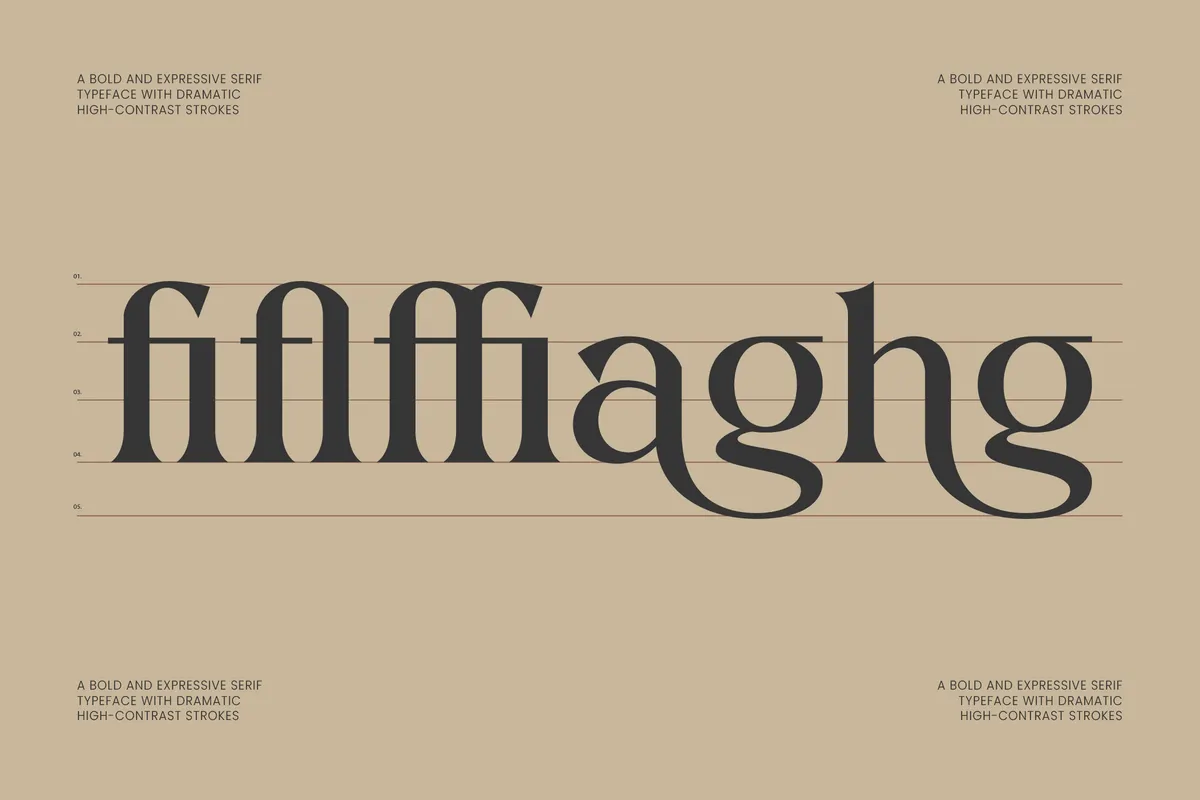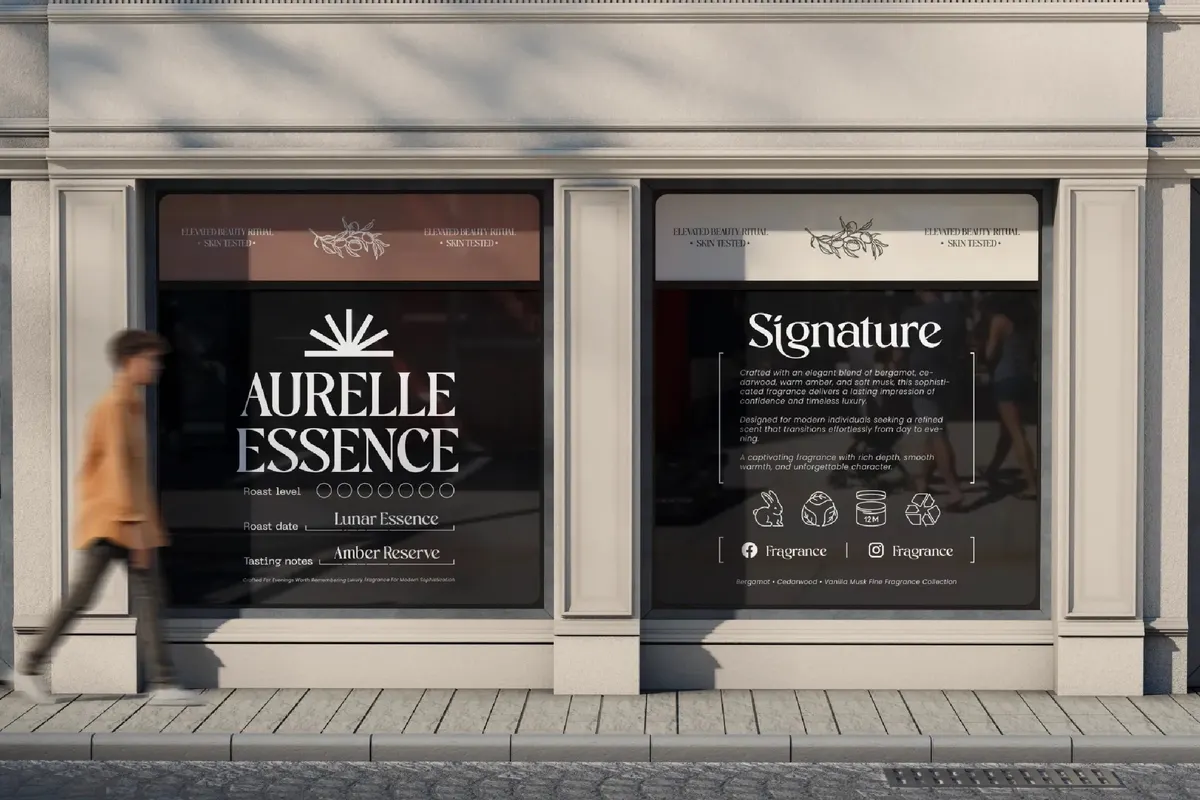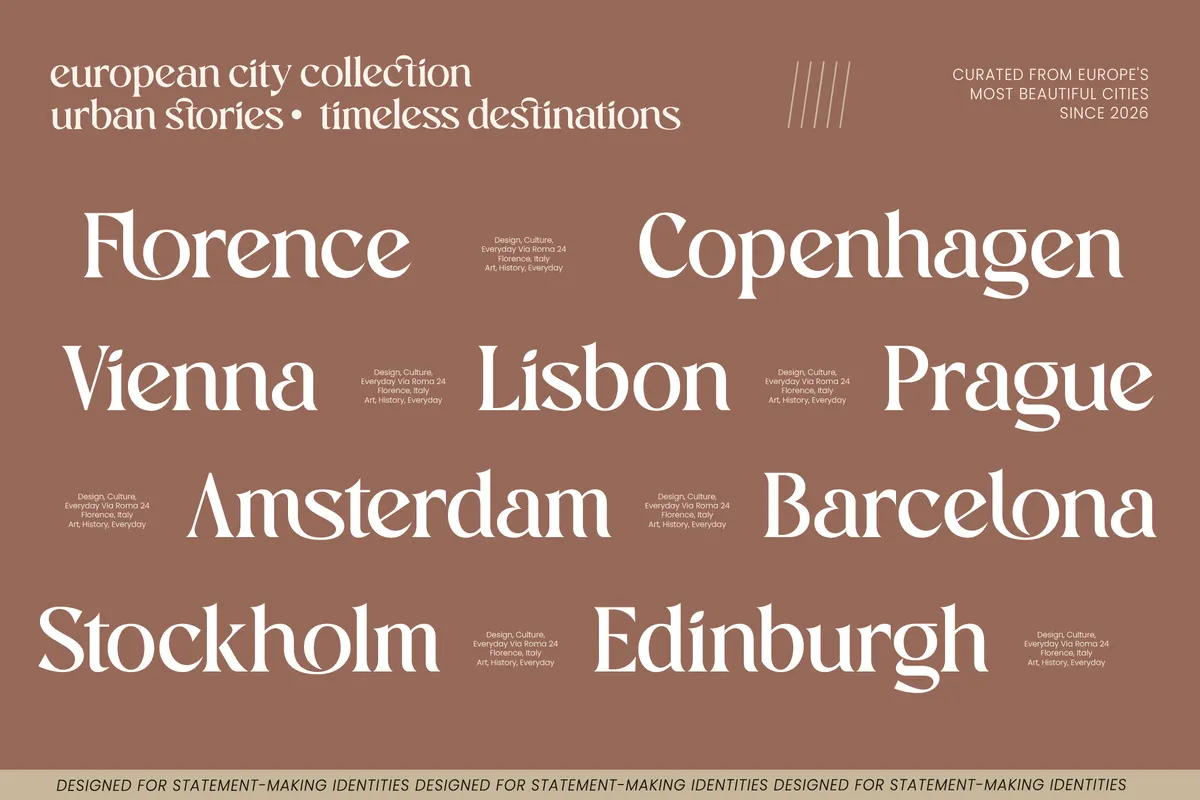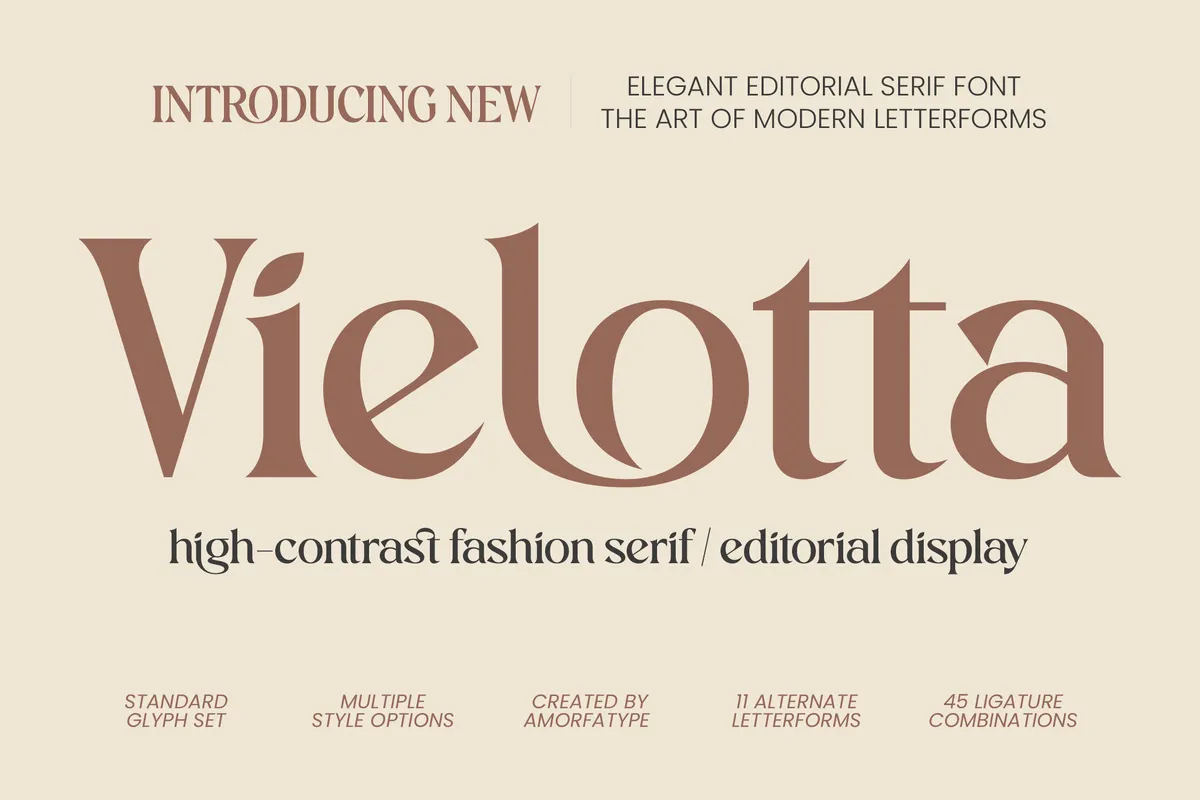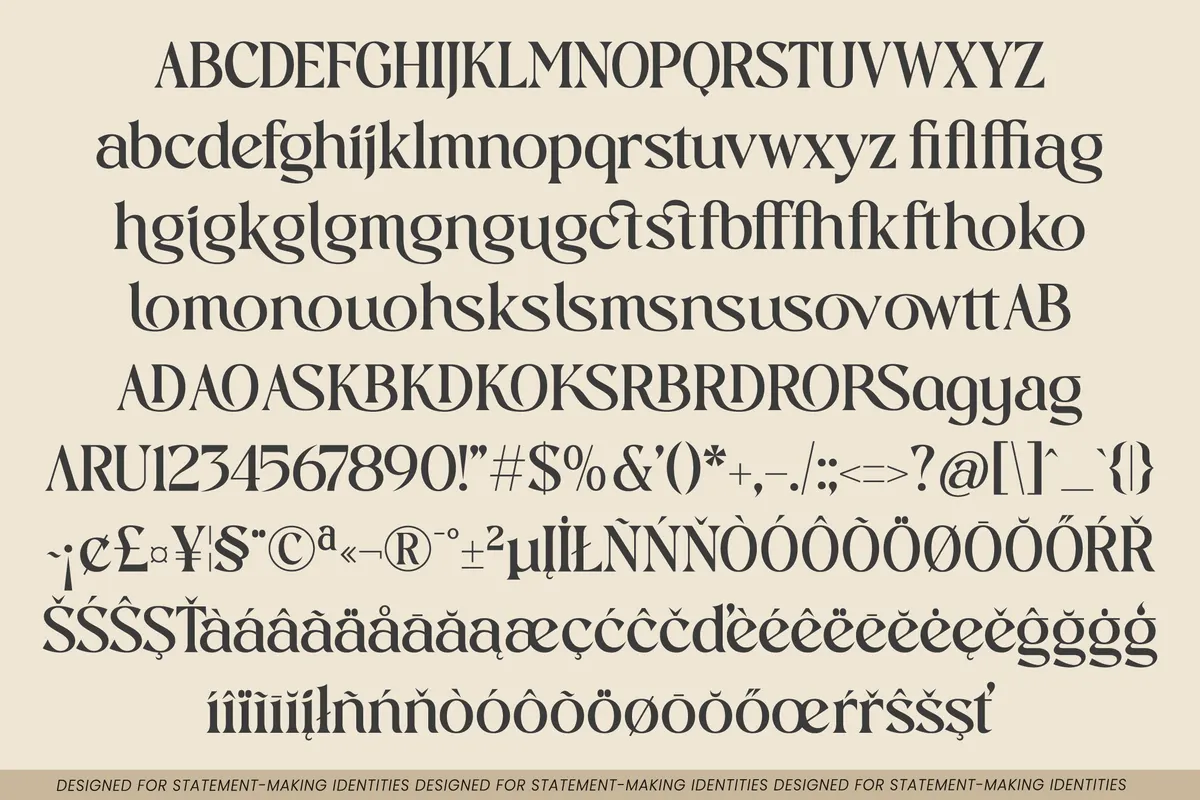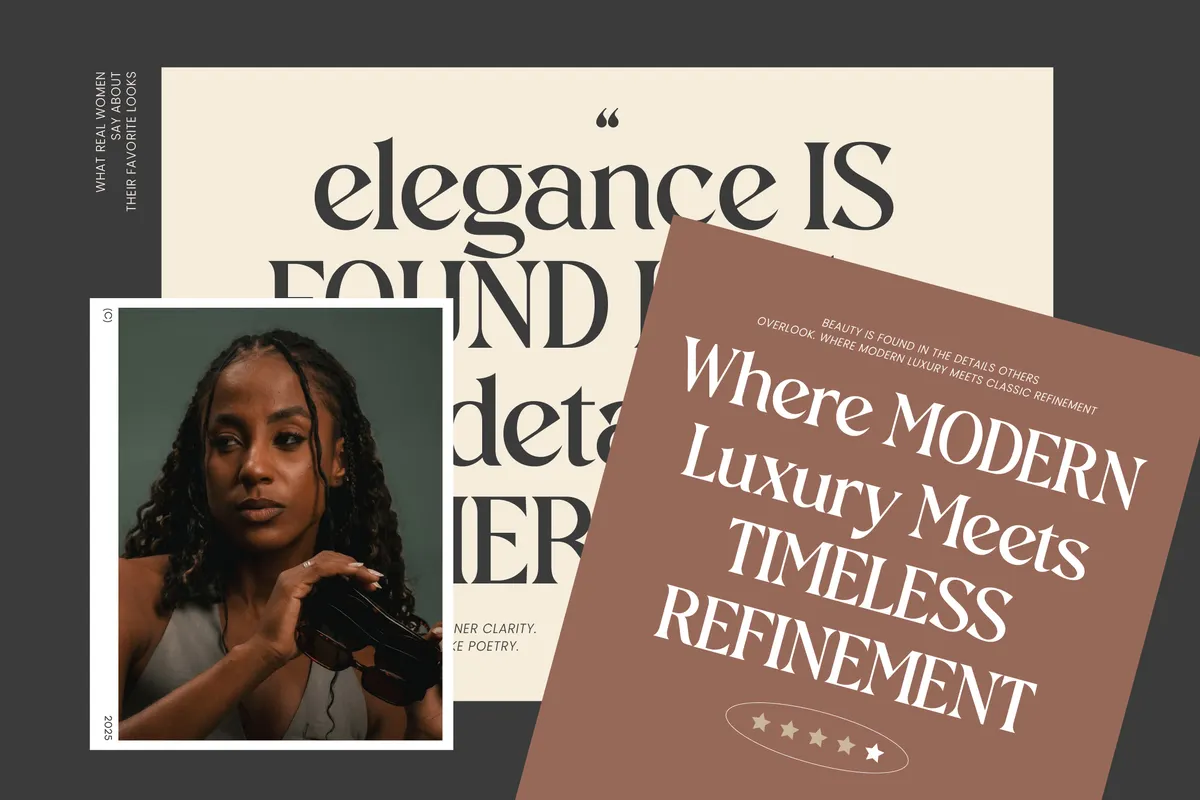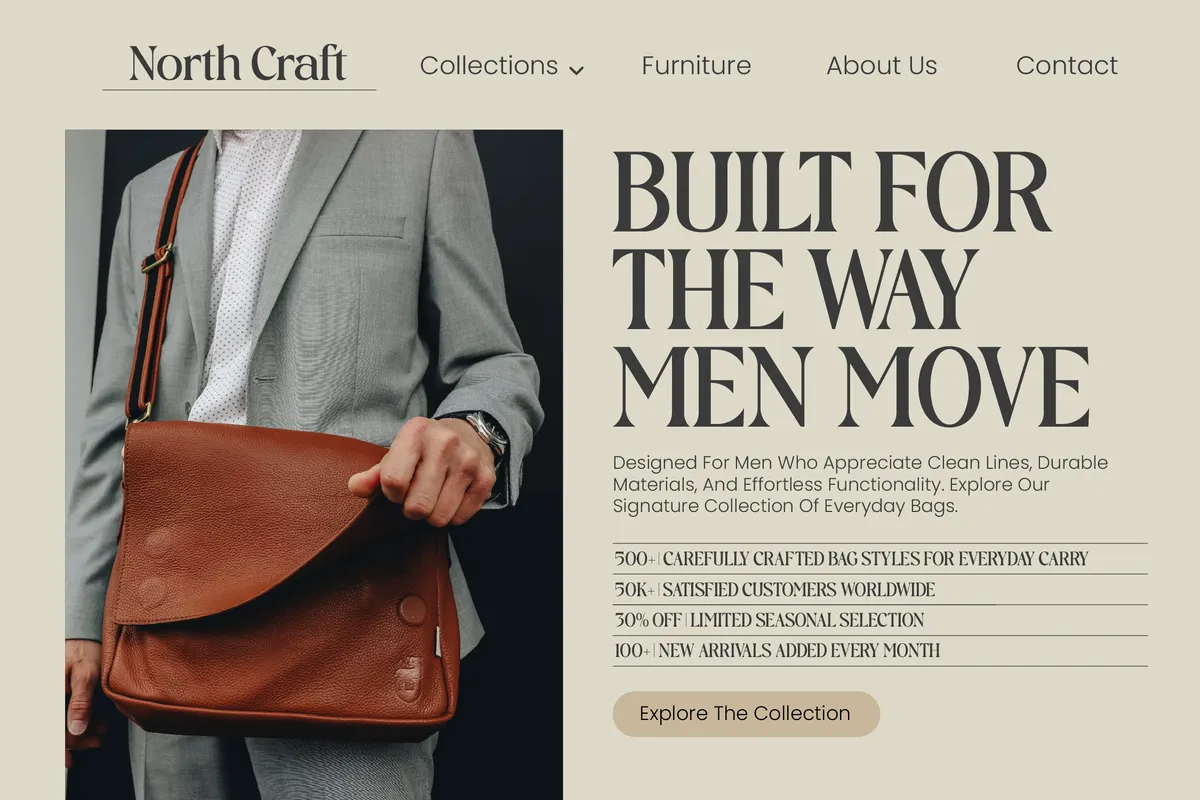
Vielotta - Elegant Editorial Serif
Vielotta builds tall, high-contrast serif capitals with a fashion-editorial edge, closer to a magazine masthead than a quiet text serif. Regular and Italic make up the pair, the italic running alongside the upright for headline contrast. Three stylistic alternate sets swap in looser forms for a, g, y, k, and a run of capitals, all reachable through the OpenType panel.
Use it for fashion branding, beauty packaging, magazine layouts, luxury logos, boutique identities, and editorial headlines that want a dramatic edge.
- Uppercase & lowercase;
- Numerals, punctuation & symbols;
- Regular and Italic styles;
- 45 discretionary ligatures, stylistic alternates on select characters, fractions, superscript figures;